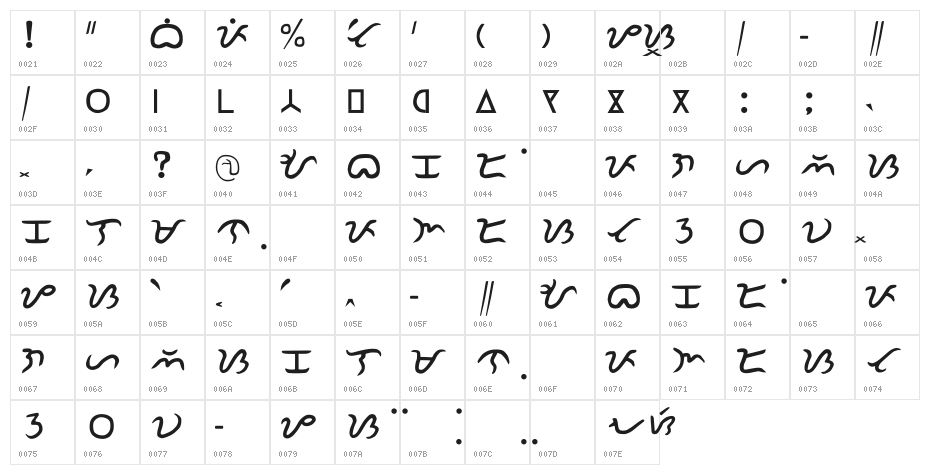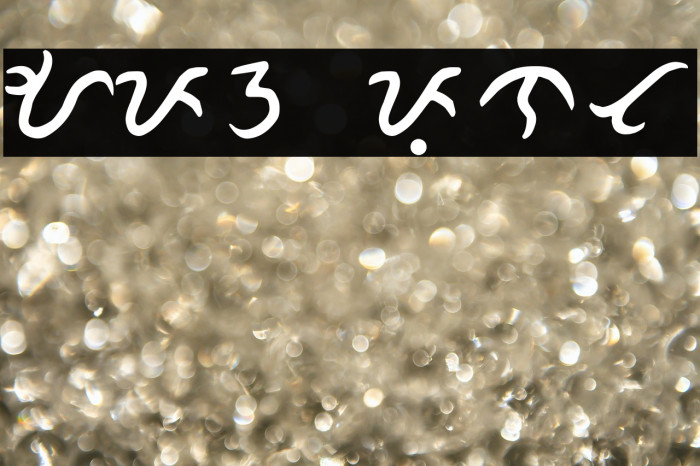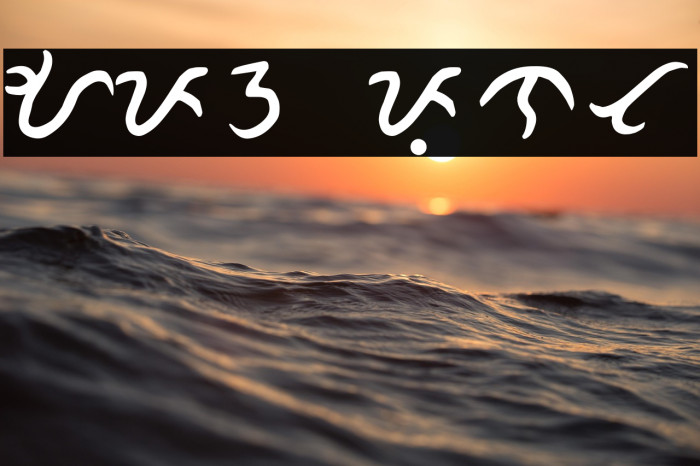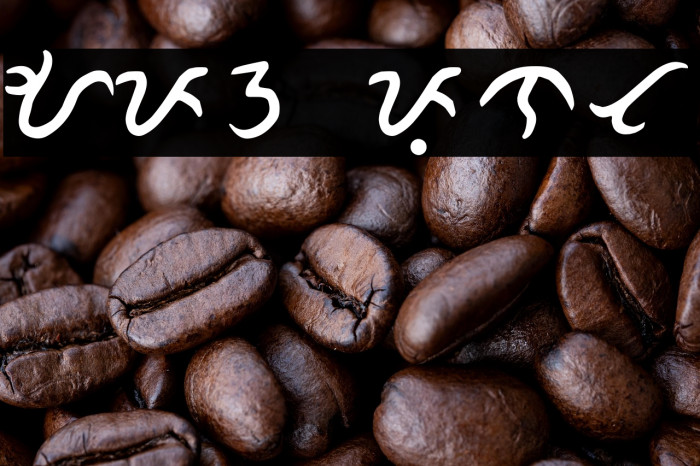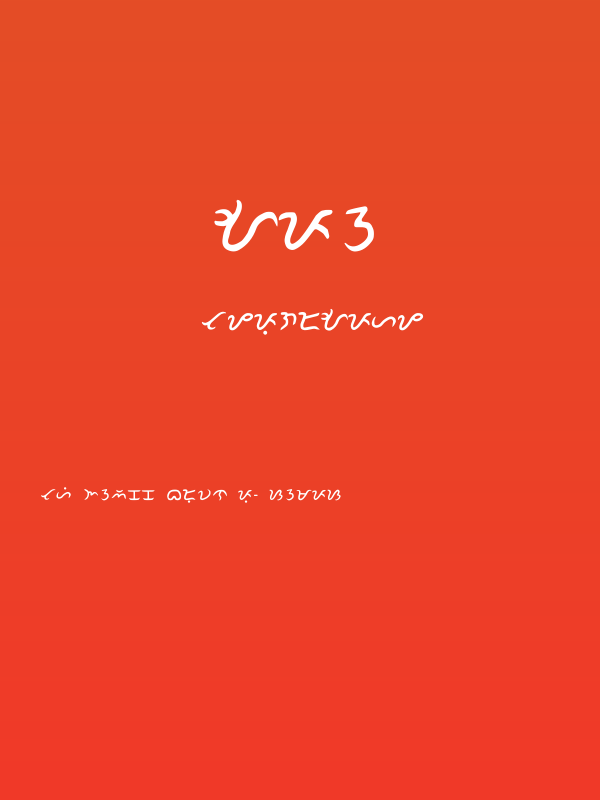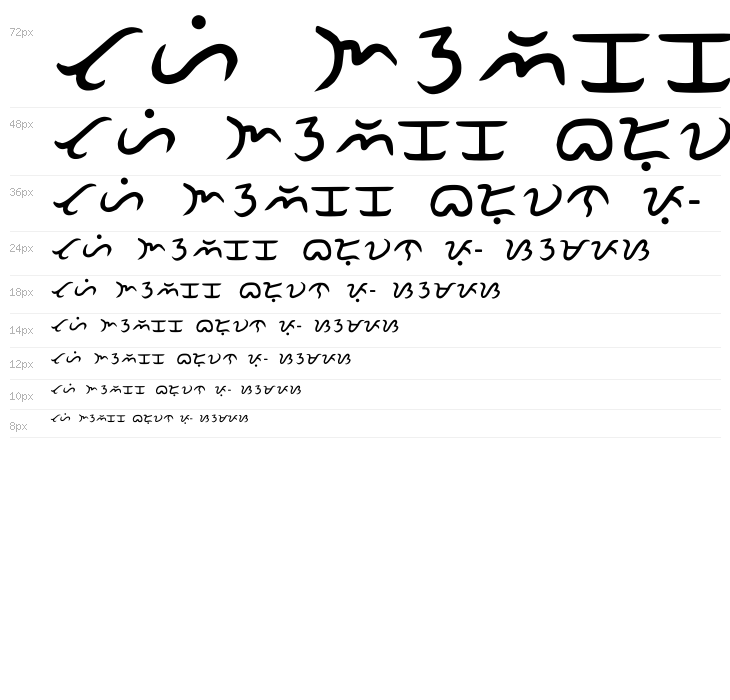
Apu Font
| Stile generale | Modern, Artistic |
| Caso d'uso | Logos, Invitations, Artistic Projects |
| Progetti proposti | Ideal for artistic projects, branding, invitations, and expressive design work. |